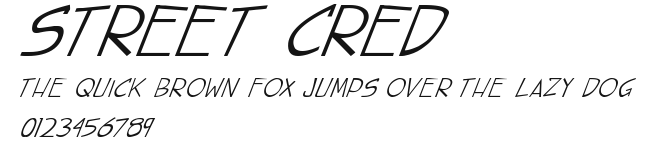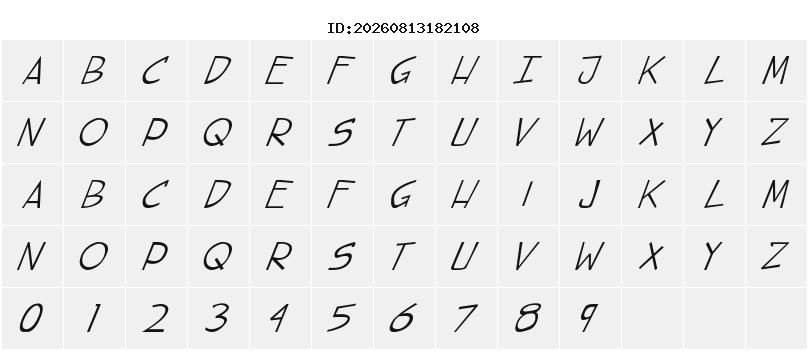
• Font Name: street cred
• Font Style: Italique
• Font ID: street cred Italic:Version 1.00
• Full Font Name: street cred Italic
• Version: Version 1.00 March 5, 2008, initial release
• PostScript Name: streetcred-Italic
About street cred.ttf
street cred.ttf is a modern, elegant sans-serif font designed for ultimate readability and visual harmony. Perfect for branding, headlines, web design, and print materials.